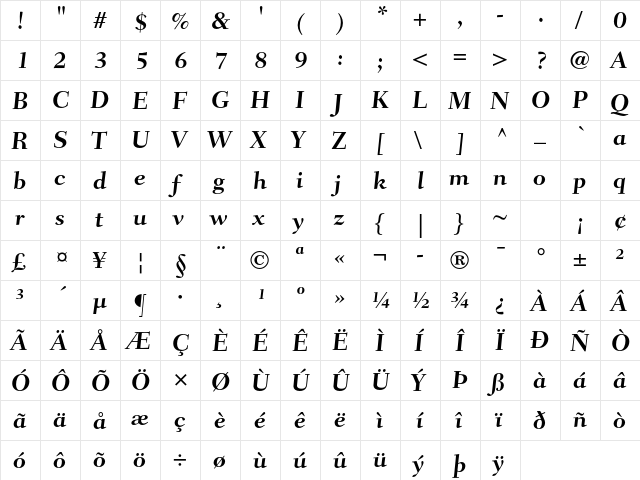
Fairfield LT Std 75 Bold Caption
| Designer | Rudolph Ruzicka, Alex Kaczun |
Design Context for Fairfield LT Std Typeface
Fairfield LT Std offers clean, dependable letterforms without strong stylistic allegiance, making it a practical choice for designers who need flexibility. The heavy weight commands attention and anchors typographic hierarchies.